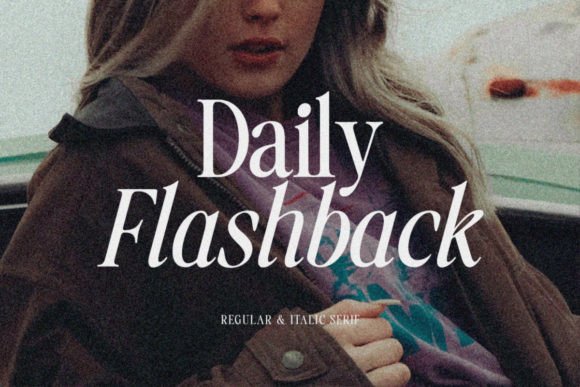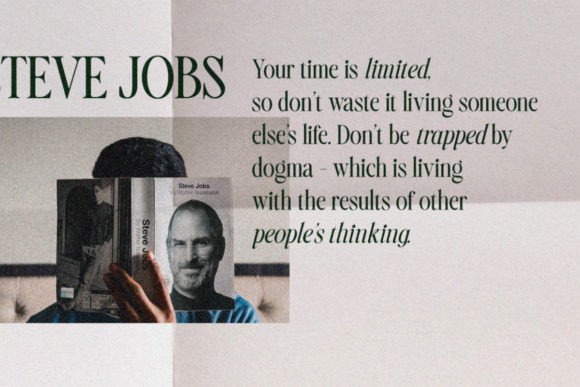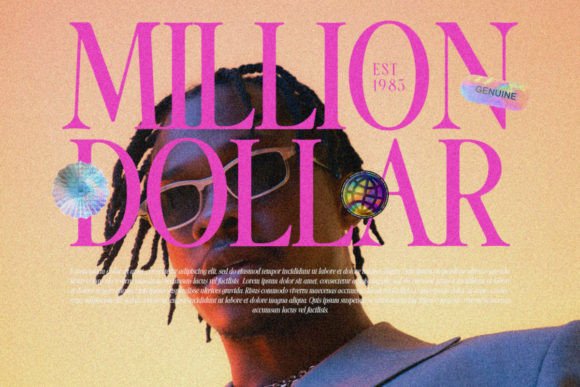
Daily Flashback is a sophisticated serif typeface. It is perfectly suited for invitations, labels, logos, magazines, books, greeting/wedding cards, packaging, fashion, make-up, stationery, novels, labels, or any type of advertising purpose.
Daily Flashback Font